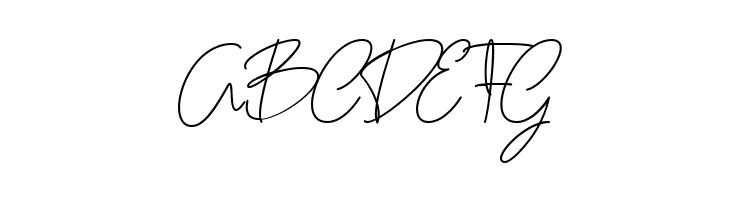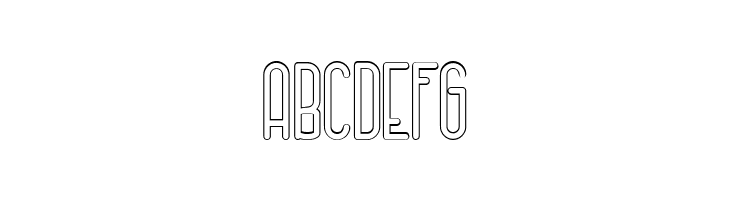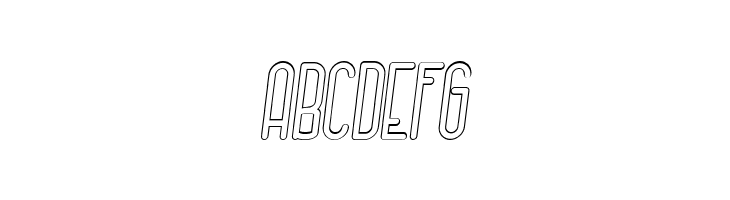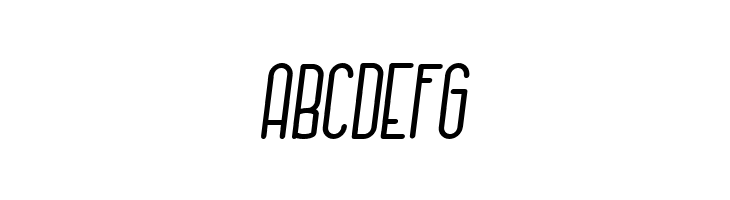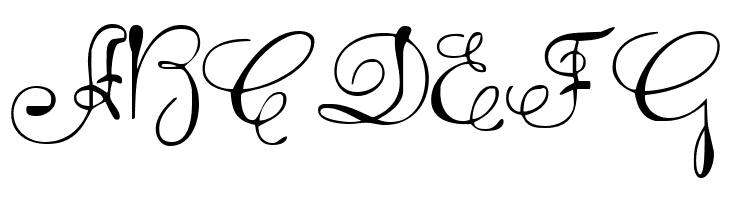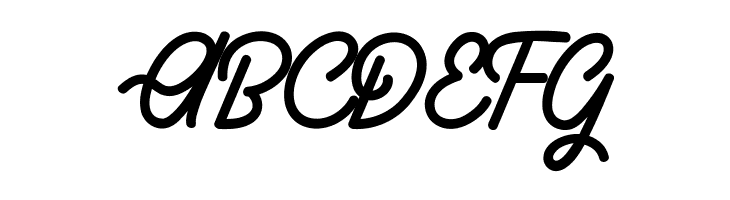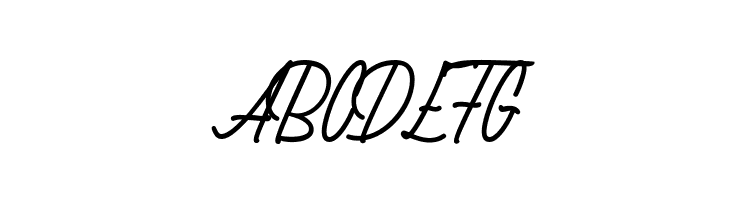
An elegant, whimsical font with flowing, cursive-like strokes and intricate loops.
A lively and expressive handwritten font with fluid, dynamic strokes.
A modern, sleek font with tall, narrow characters and rounded edges.
A modern, italicized outline font with sleek, elongated characters.
A modern, outlined font with a sleek, condensed style and uniform stroke width.
A sleek, modern font with an italic slant and consistent stroke width.
A dynamic and flowing script font with elegant cursive letterforms.